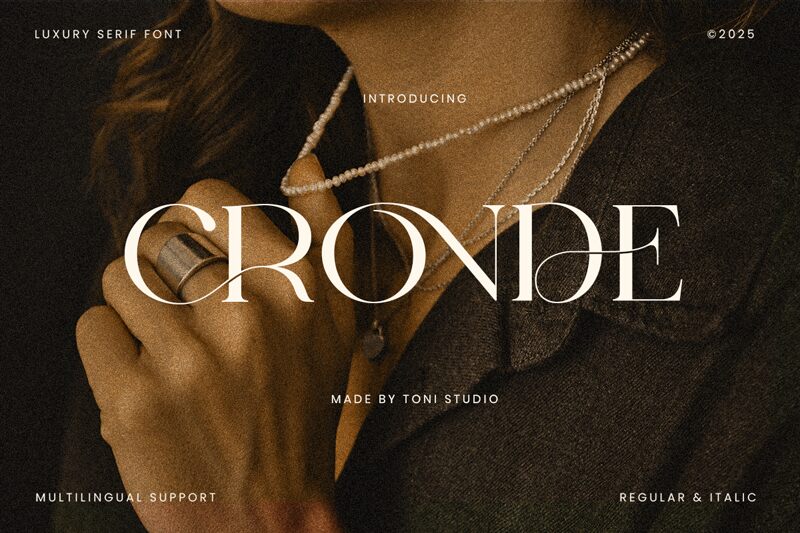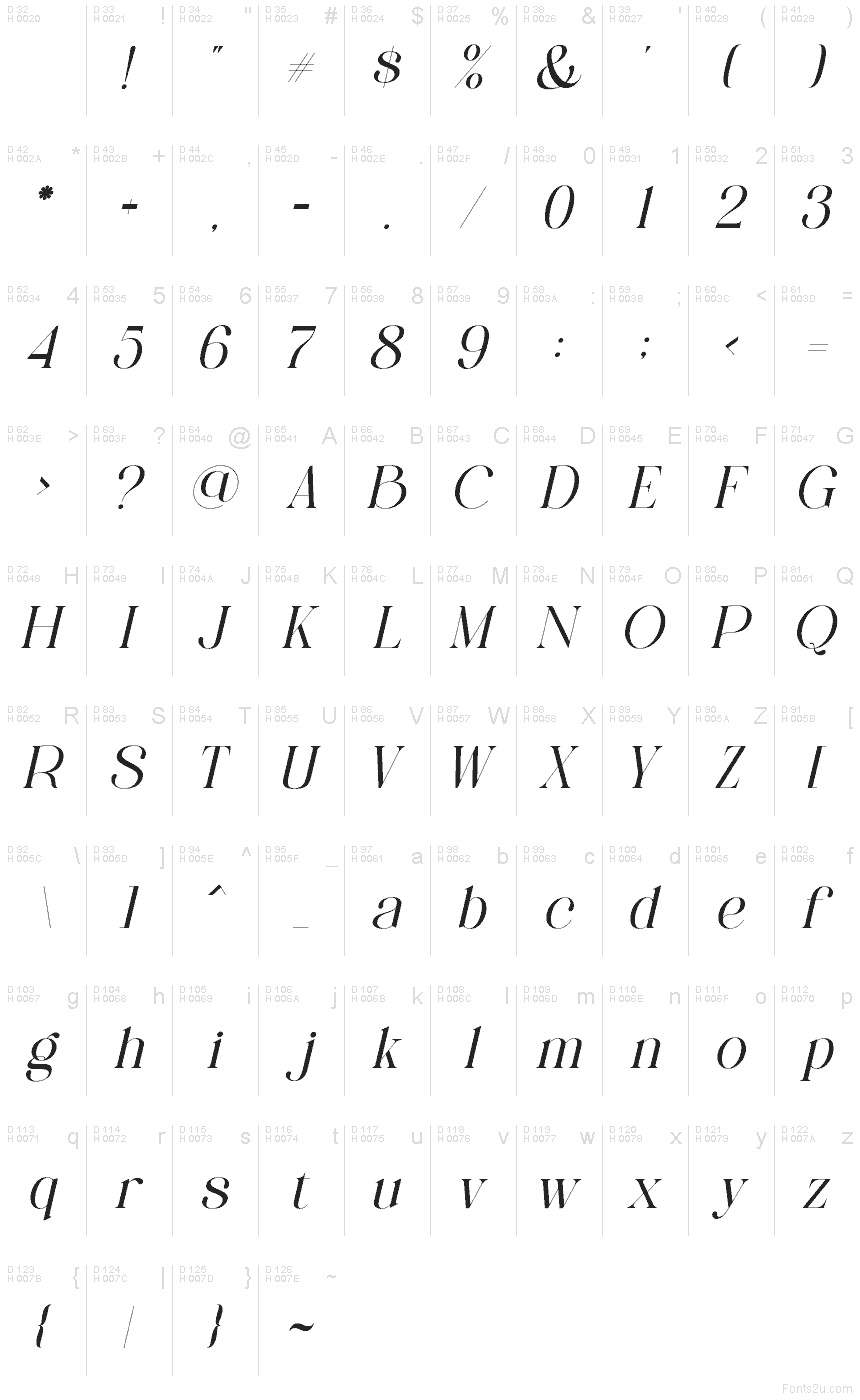
CRONDE Italic
Cronde Italic font by ToniStudio is a free serif typeface. Part of the Cronde family, it leans into a dramatic forward slant and blade‑sharp strokes that feel inky and deliberate, like a calligrapher working with a freshly cut nib. The letters are tall and poised, with tight rhythm and sweeping motion that turns even short words into a statement.
Using Cronde Italic, headlines gain a silky snap that shines on fashion editorials, luxury branding, perfume and skincare packaging, magazine mastheads, book covers, and wedding stationery. This free font loves generous sizes and a touch of tracking to let the fine strokes breathe. Pair it with a quiet grotesque sans for body copy to keep the spotlight on those elegant, slanted forms.